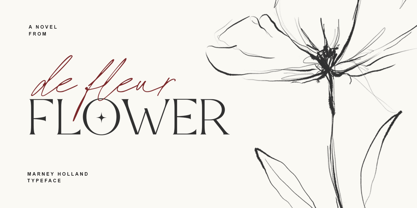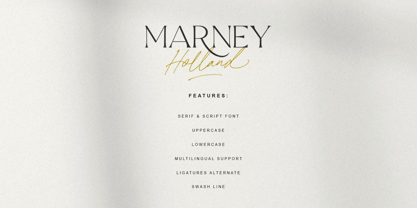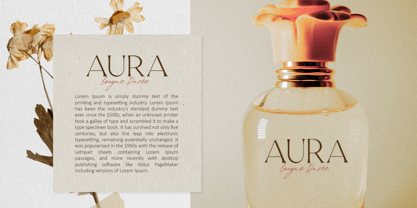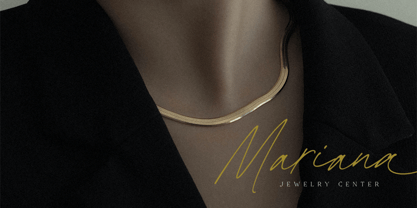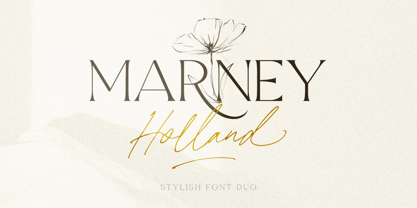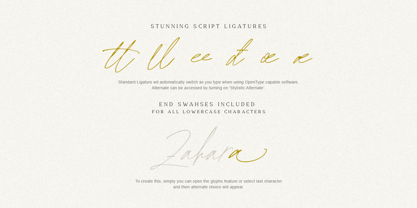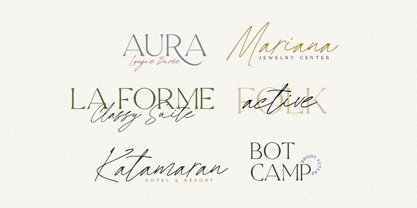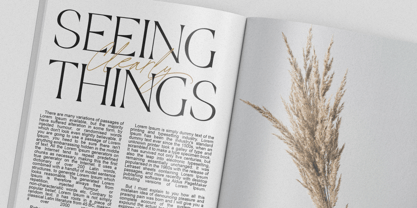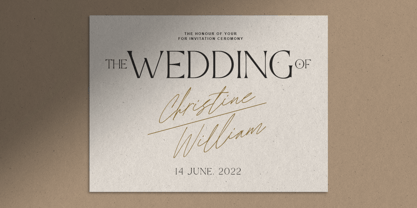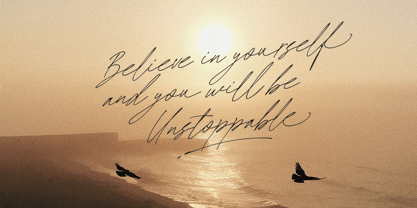
Marney Holland
by Bale Type
The Marney Holland Font Family was designed by Sarid Ezra, Dzikrul Aulia and published by Bale Type. Marney Holland contains 2 styles and family package options.
Marney Holland is a font duo contains stylish signature script and elegant serif. You can use this font for any purpose, such as branding, logo, or even wedding invitations. You don't have to search for font match, you can get it both in the package. This font is timeless and versatile. Marney Holland also support multilingual!
Marney Holland